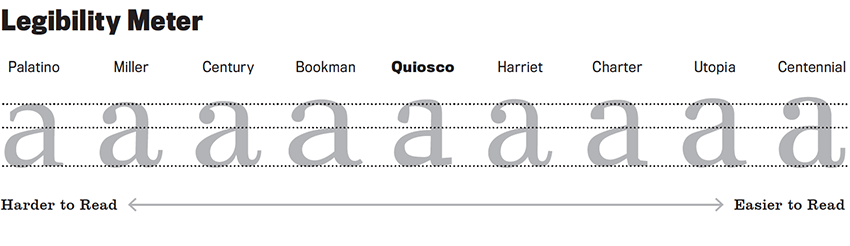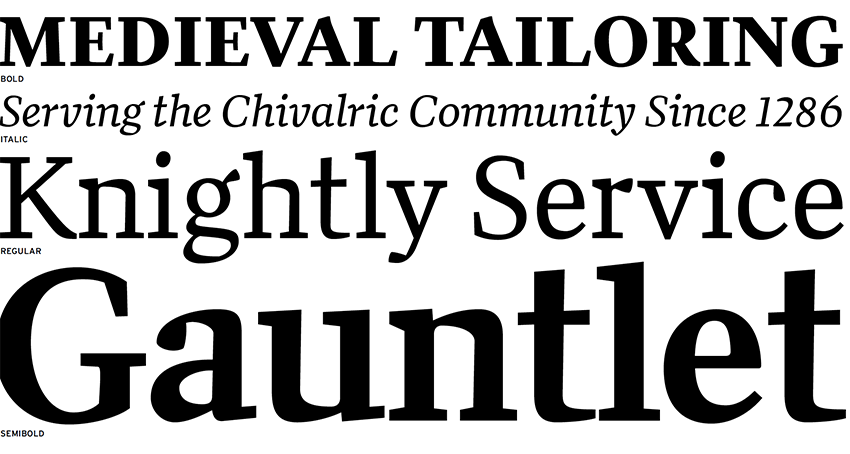
Type designer Cyrus Highsmith designed Quiosco to withstand the rigors of printing on cheap paper with high-speed web presses. This transitional serif was constructed specifically for readability at small sizes, revealed by its narrow character spacing and contrasting character outline.
High-performing fonts save us headaches by reducing the amount of time needed to make adjustments while working, especially when setting large amounts of copy in brochures, annual reports and books. Font Bureau's Quiosco is one that's high on our list of text families that demonstrate the harmony of both charisma and execution.
Pros include a nice overall color, good reading with a generous x-height and short ascenders and descenders allow for a clean, linear look. Some cons include abrupt arches, closed aperatures and clunky italics. It'd be nice to have old-style numerals as a default for a text typeface, but otherwise, a nice choice for a text typeface.
We love the default standard ligatures, low stroke contrast and exaggerated features. The typeface has a great balance of personality and readability, so it sits in the middle of our legibility meter. For more comparisons, download our TPR report on Quiosco.